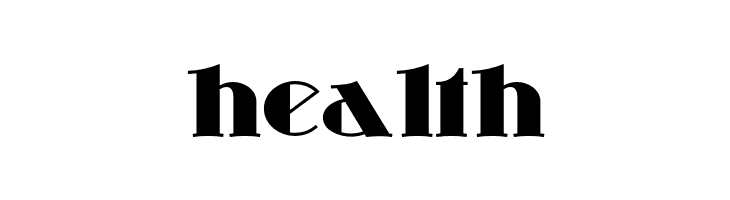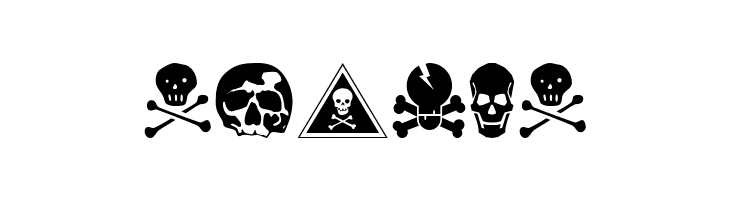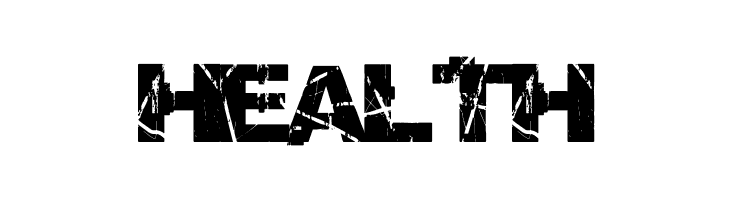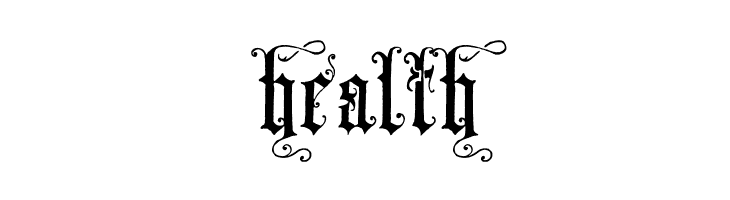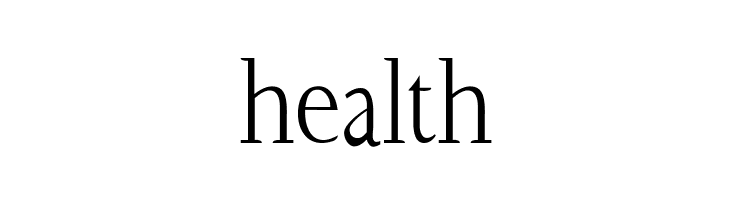
A bold, high-contrast font with angular serifs and dynamic style.
A skull-themed decorative font with diverse skull illustrations.
A light slab serif font with rounded edges, combining classic and modern elements.
A bold, playful font with rounded, chunky characters and a whimsical style.
A bold, playful font with exaggerated curves and a whimsical style.
A bold, Gothic-style font with sharp, angular edges and a medieval aesthetic.
A classic typewriter-style monospaced font with a clean, slightly rounded design.
A monospaced typewriter-style font with a vintage, mechanical feel.